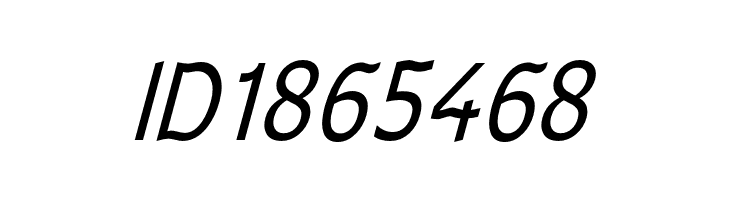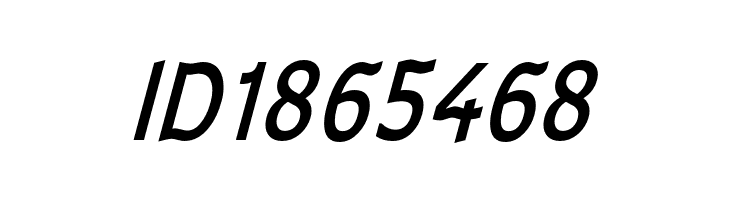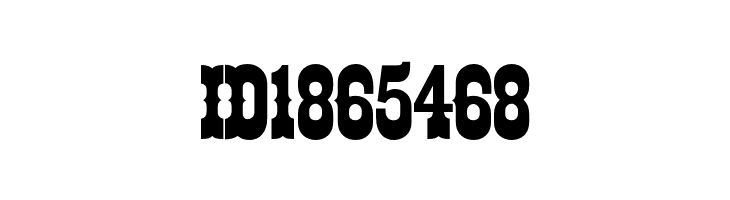
• Waverley-BoldItalic
A bold, italic font with dynamic slant and modern flair.
• Waverley-Italic
A dynamic italic font with smooth, flowing letterforms and a sophisticated style.
• Zabars
A bold, slab serif font with a vintage Western flair.